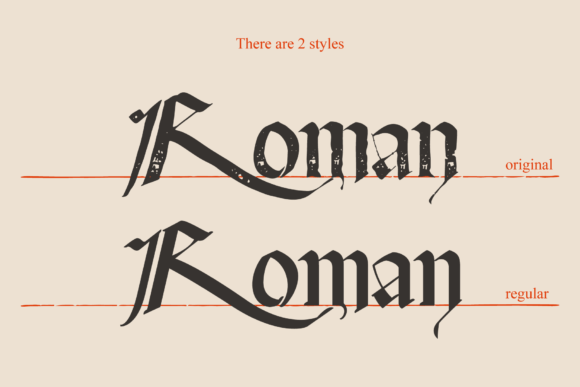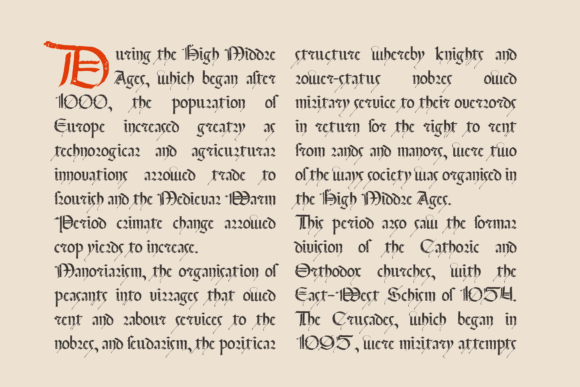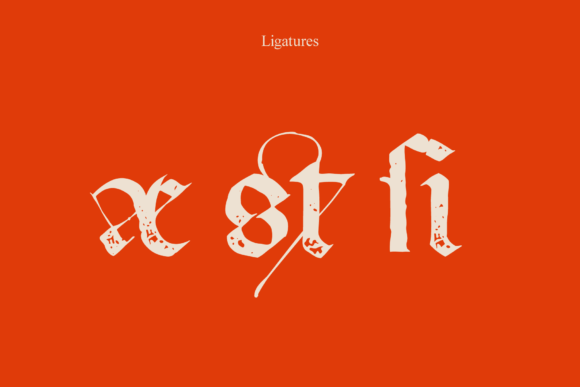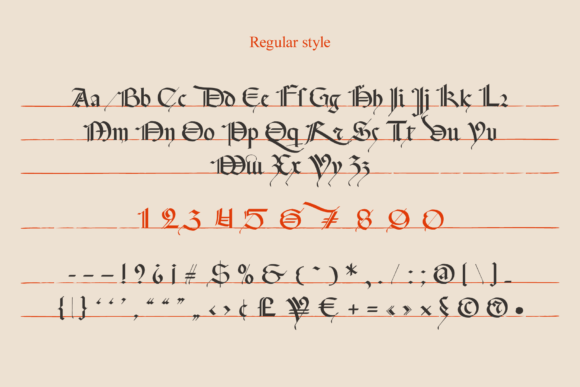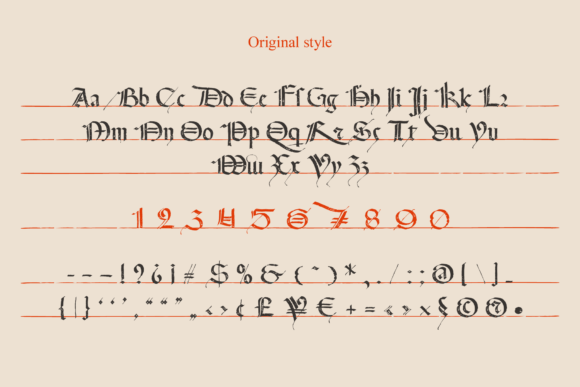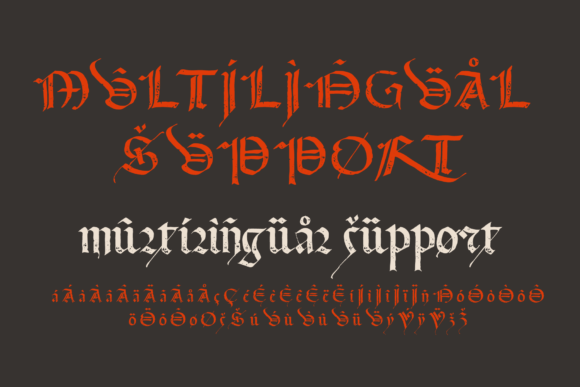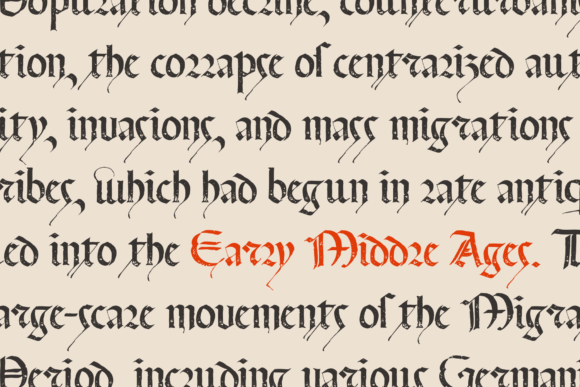
Manuscript Felice Font
Manuscript Felice is a medieval-style blackletter font that exudes an air of Gothic sophistication. Its intricate letterforms are reminiscent of handwritten manuscripts from the past, with sharp angles and graceful curves that create a sense of old-world elegance. Whether used for headlines or body text, Manuscript Felice is perfect for adding a touch of medieval charm to any design project.
This font family was based on vintage Italian Processional manuscript. The book block has disintegrated, and the author is unknown, which only adds to its old-timey charm.